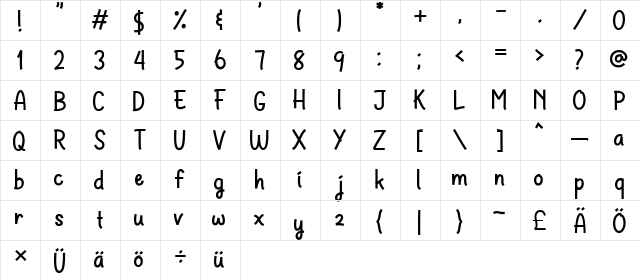
Bill & Jack Regular
Design Context for Bill & Jack Typeface
Bill & Jack offers clean, dependable letterforms without strong stylistic allegiance, making it a practical choice for designers who need flexibility.